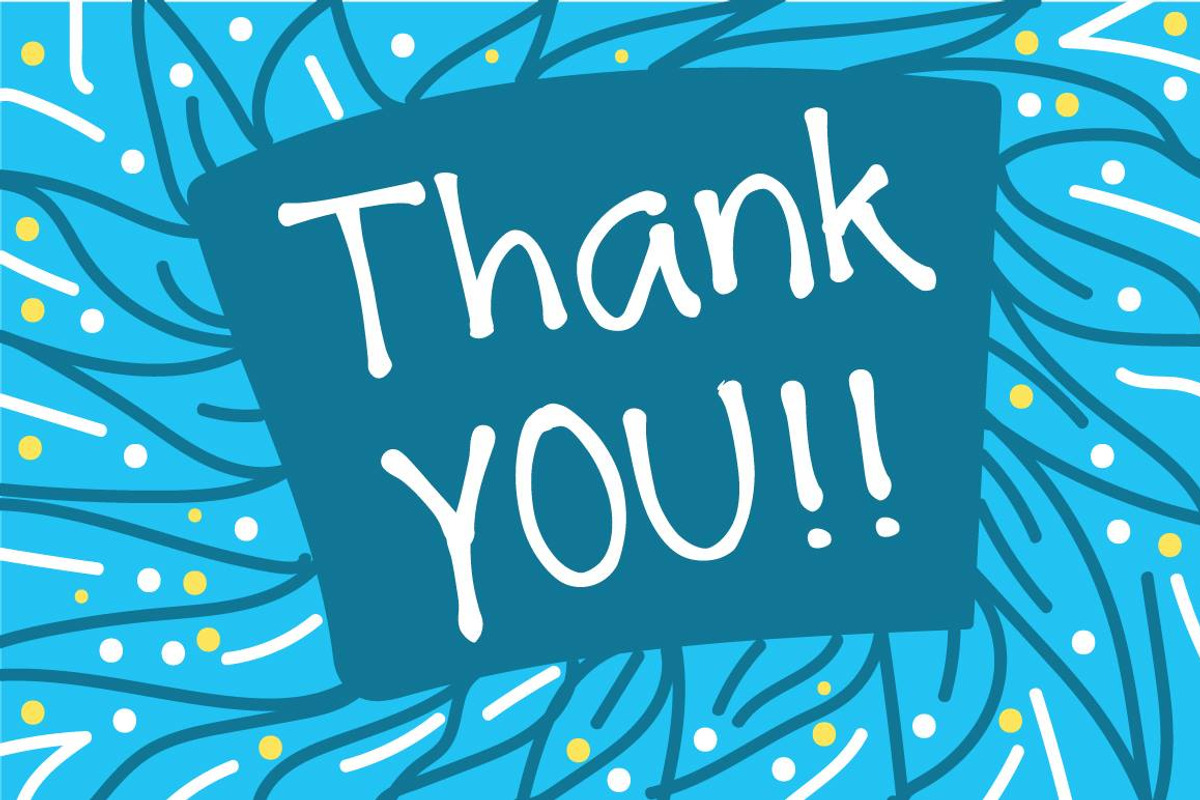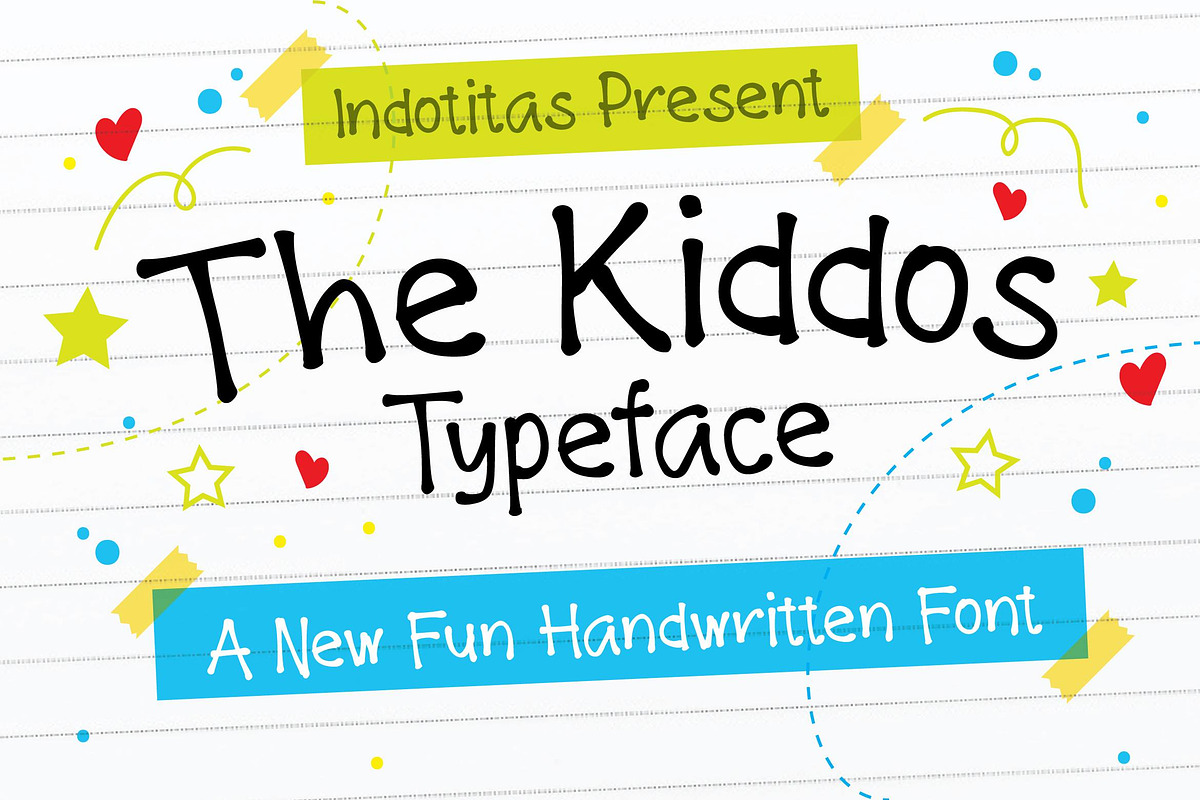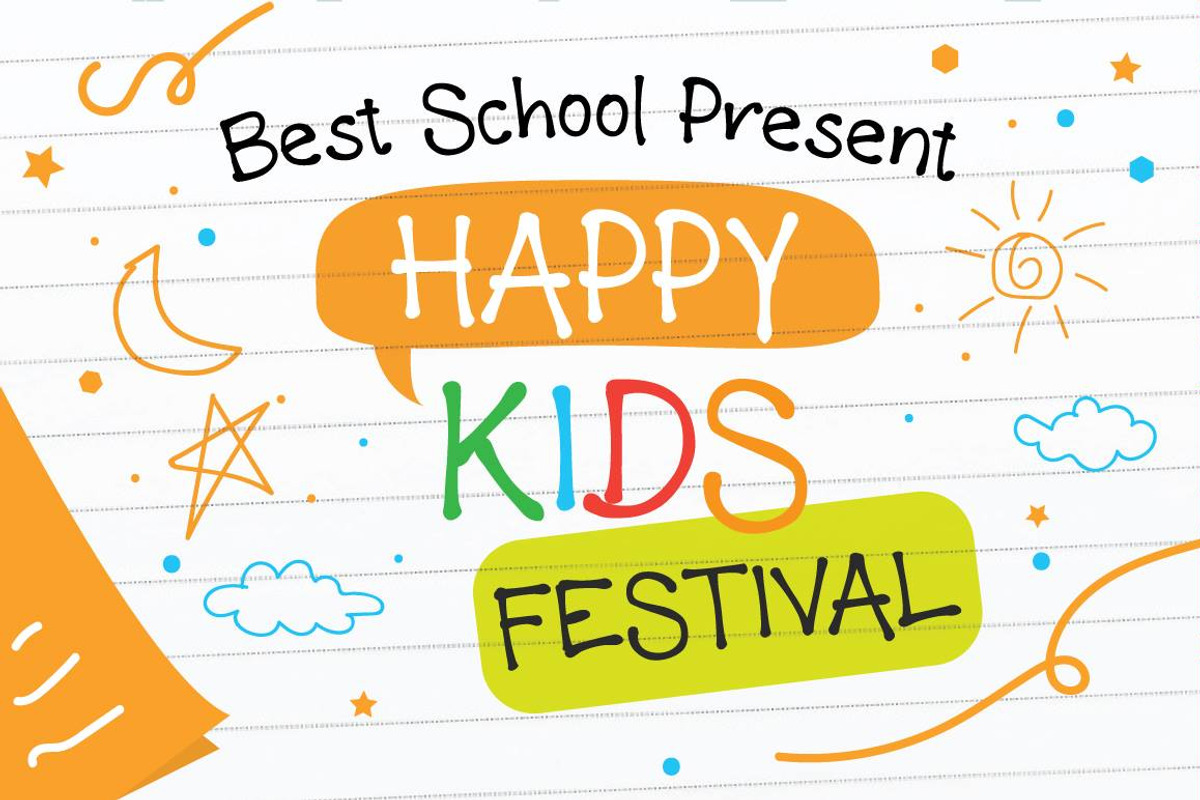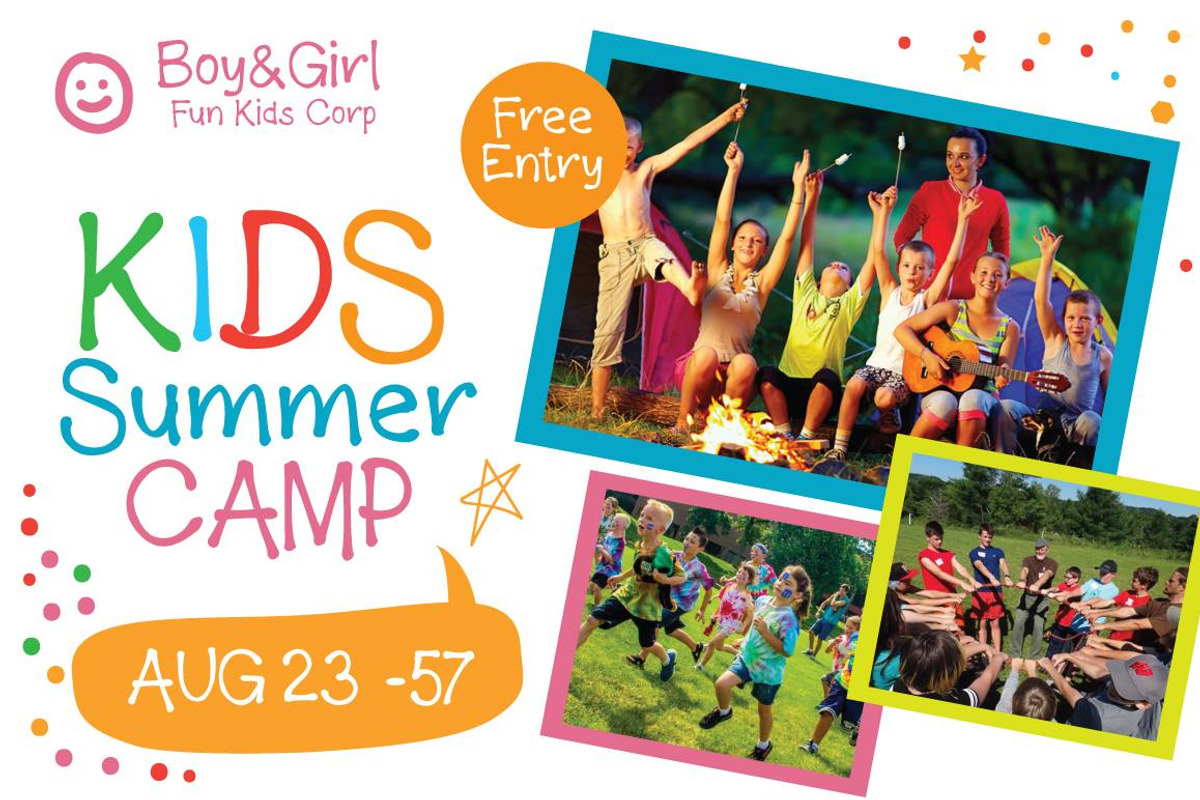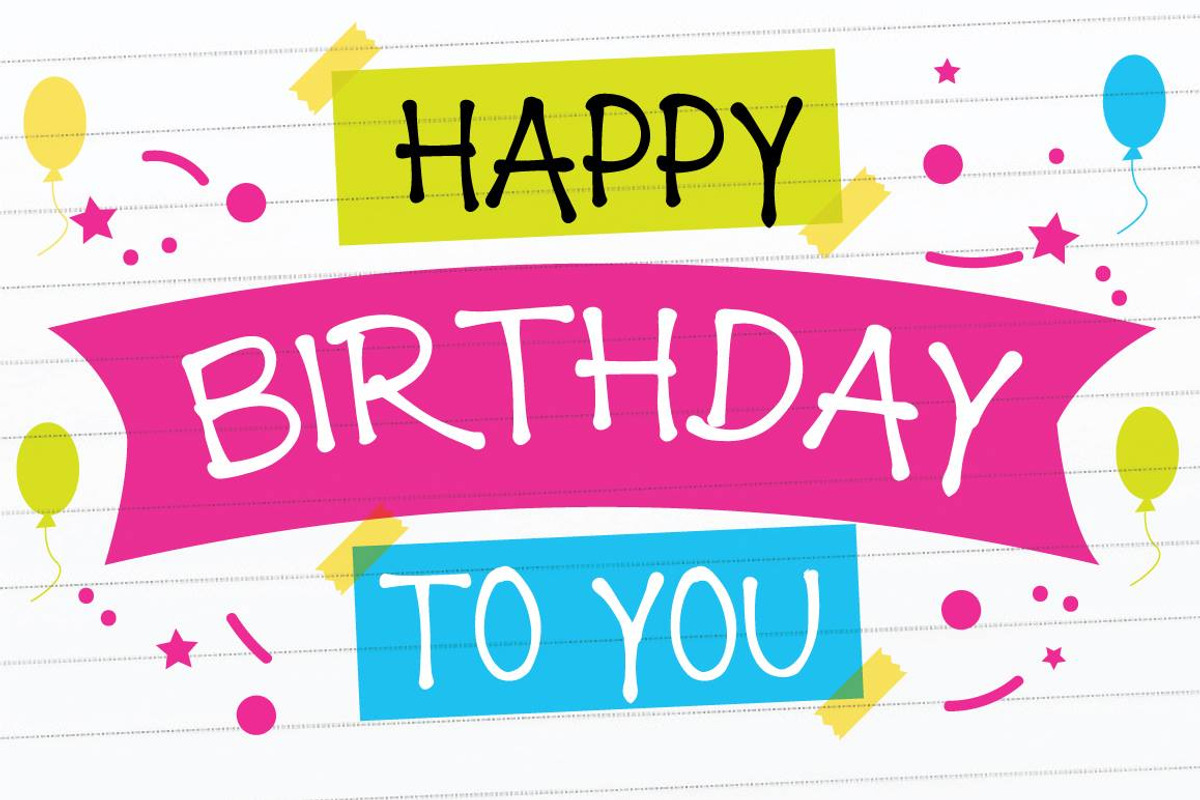
The Kiddos Typeface
The Kiddos Typeface is a new font from Indotitas, this font is designed with a fun atmosphere to bring funny and fun feeling in all its forms, as it looks childish.
This font also carries the theme clean and simple. This font is perfect for something that carries cartoon themes, comic, children’s books, funny greeting cards, food package designs, simple logotype or abstract images and many more